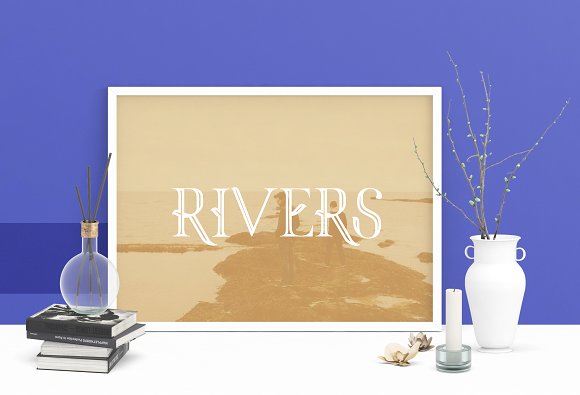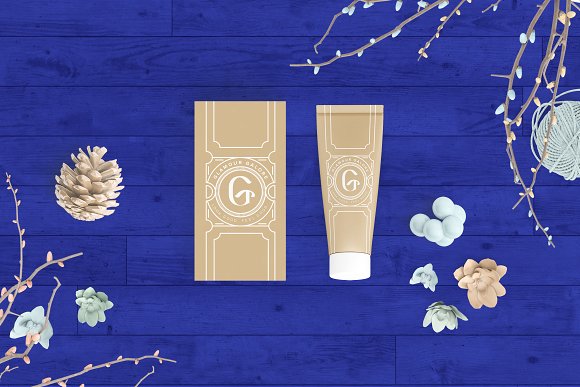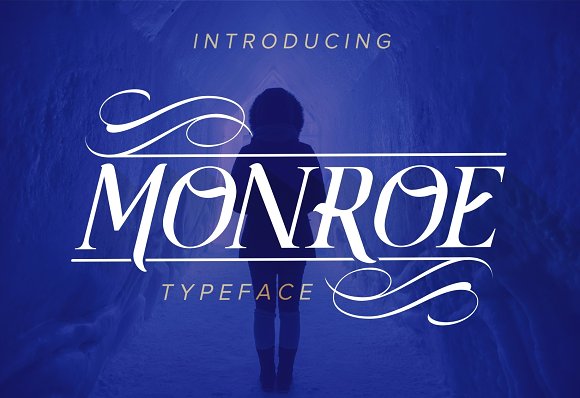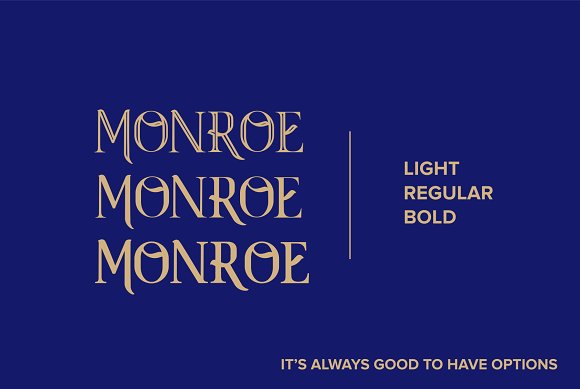
Monroe Typeface
Monroe Font Family
Hey, Guys. Monroe is the latest project I have. I’ve been working on this font family for a while & it is one of my absolute favorite things I’ve done on Creative Market so far. I wanted to create something modern yet vintage in a way. I hope you find a use for it and see the potential that I see.
This font comes in 3 options – Light, Regular & Bold and you can use it for your logo projects, for catchy headings, apparel design, gift cards, any typography projects you have coming up and anything else that requires a unique & strong lettering involved.